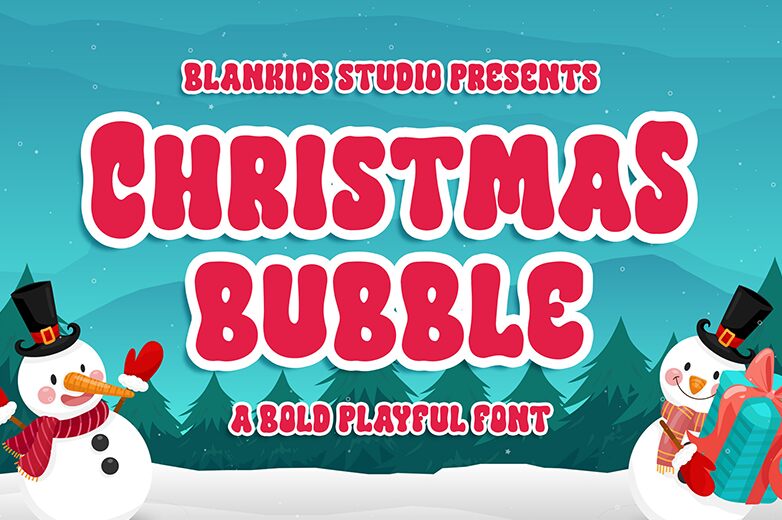
Christmas Bubble
Christmas Bubble font by Blankids is a playful display font full of a joyful vibe, perfect for the festive season. The groovy typeface has fully rounded letters that appear whimsical and delightfully approachable at first glance. Both retro-inspired and fun in appearance, the elements making up the look combine condensed width with bold weight. Each character delivers its separate aesthetic which works perfectly when detected within words.
When it comes to usability, the classic examples include headings, banners, posters, advertising materials like flyers or brochures and packaging design. Finally, Christmas Bubble can certainly enhance signages or social media posts among other graphics lovers can think of!